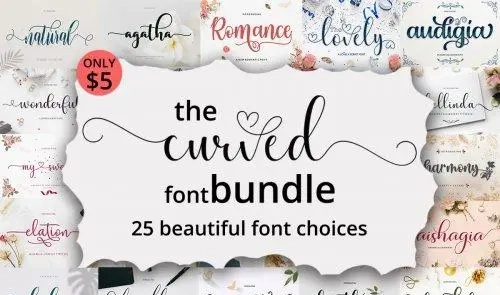
The Curved Font Bundle – 25 Fonts
Introducing The Curved Font Bundle, a carefully curated collection of 25 unique fonts that bring a touch of creativity to your design projects. Each font features smooth curves and distinctive styles, making them perfect for a variety of applications.
• 25 distinct font styles
• Variety of weights and styles for versatility
• High-quality design suitable for both print and digital media
• Easy to read and visually appealing
• Includes both uppercase and lowercase letters, numbers, and special characters
• Designed for modern aesthetics with a playful twist